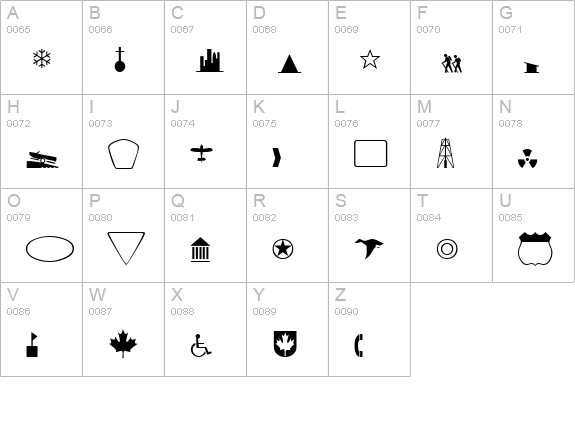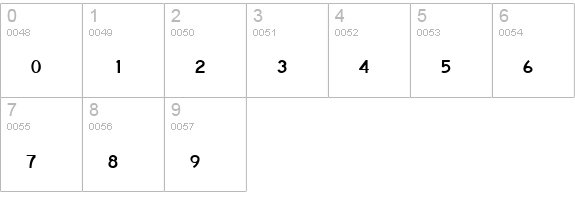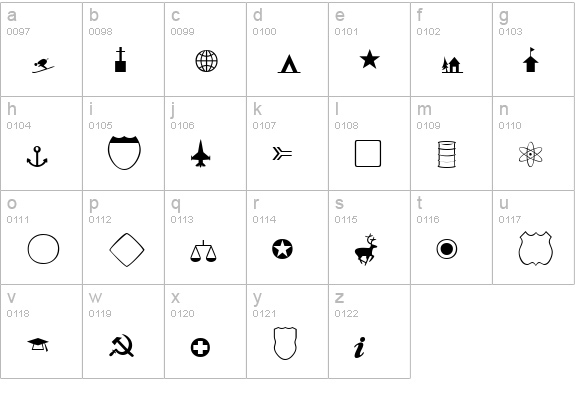
CartographerLightSSK is a charming and elegant font that exudes a sense of sophistication and creativity. With its clean lines and stylish curves, this font is perfect for a variety of design projects, from invitations to branding materials. The light weight of the font gives it a delicate and modern look, making it a versatile choice for both print and digital media. What's even better is that CartographerLightSSK is available for free download at FontsMarket.com. This means you can easily add this beautiful font to your collection without any cost, allowing you to bring your creative vision to life without breaking the bank. Don't miss out on the opportunity to enhance your designs with the timeless appeal of CartographerLightSSK!